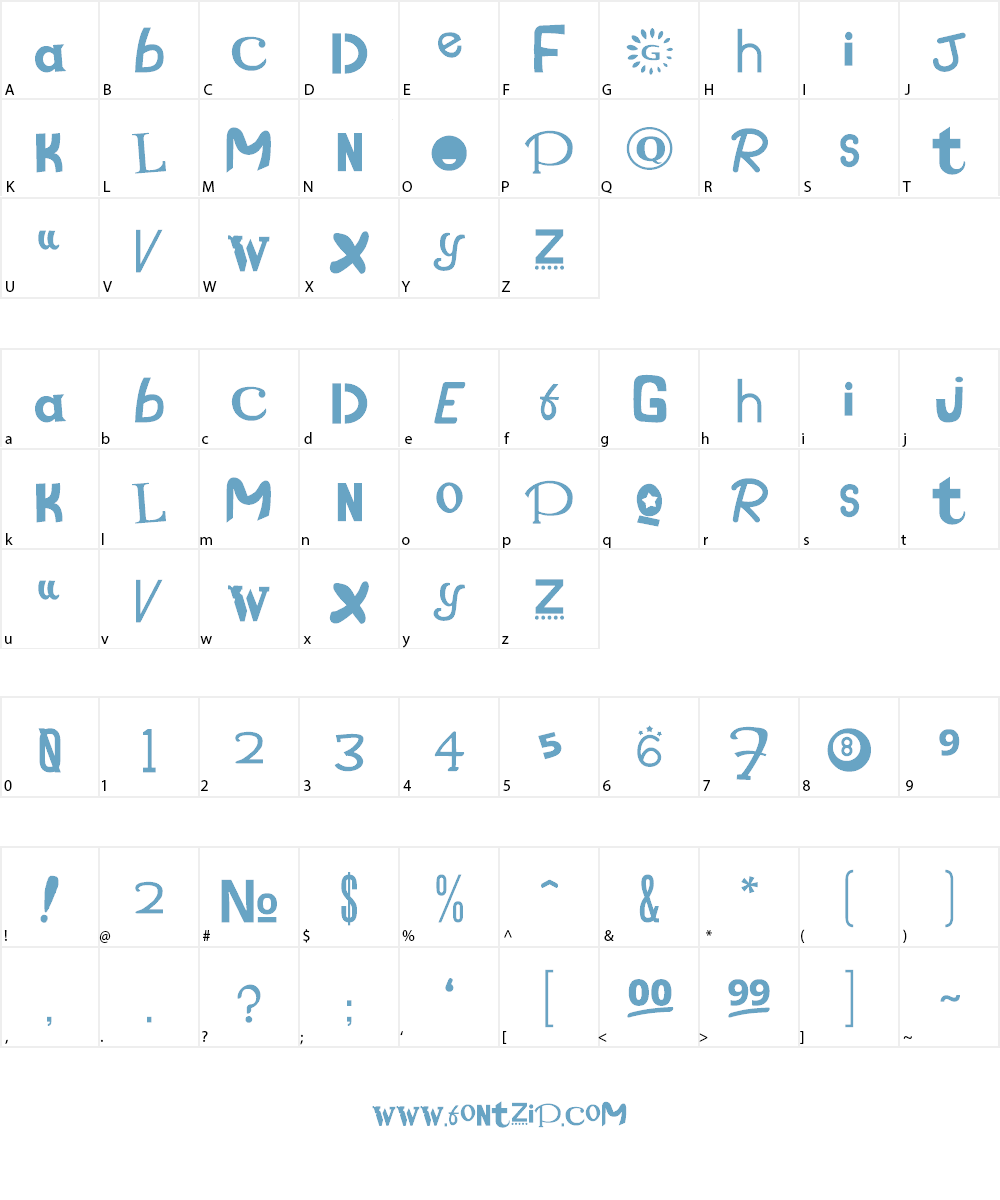
Spacelifter is a ransom note with most of the letters are from the SNES version of Earthworm Jim. Some of them are from the parts of the logos of a company.